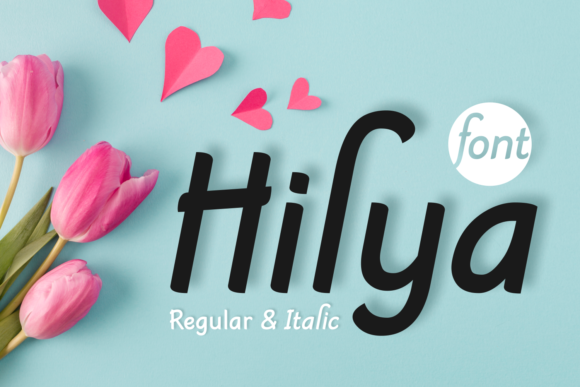
Prepare yourself to be mesmerized by Hilya Font, an exquisite sans serif font that will enchant your designs with its captivating charm. Crafted by the renowned Jasm (7NTypes), this font exudes elegance and modernity, promising to elevate your creations to new heights.
Hilya's graceful curves and playful demeanor will add a touch of whimsy to your projects. Its versatility knows no bounds, making it the perfect choice for a wide range of applications. Whether you're designing social media posts, website headers, or eye-catching logos, Hilya will make your words dance with undeniable style.
Immerse yourself in the world of Hilya and discover a font that is not just a collection of letters but a true work of art. Its enchanting beauty will captivate your audience, leaving them spellbound by the sheer brilliance of your designs.
Don't settle for ordinary fonts when you can embrace the extraordinary. With Hilya Font, you'll unlock a world of creative possibilities. Let your imagination soar and watch as your designs transform into masterpieces that leave an unforgettable impression.
Embrace the allure of Hilya Font today and embark on a typographic adventure that will redefine your creative vision. Its captivating charm and endless versatility will empower you to create designs that stand out from the crowd.